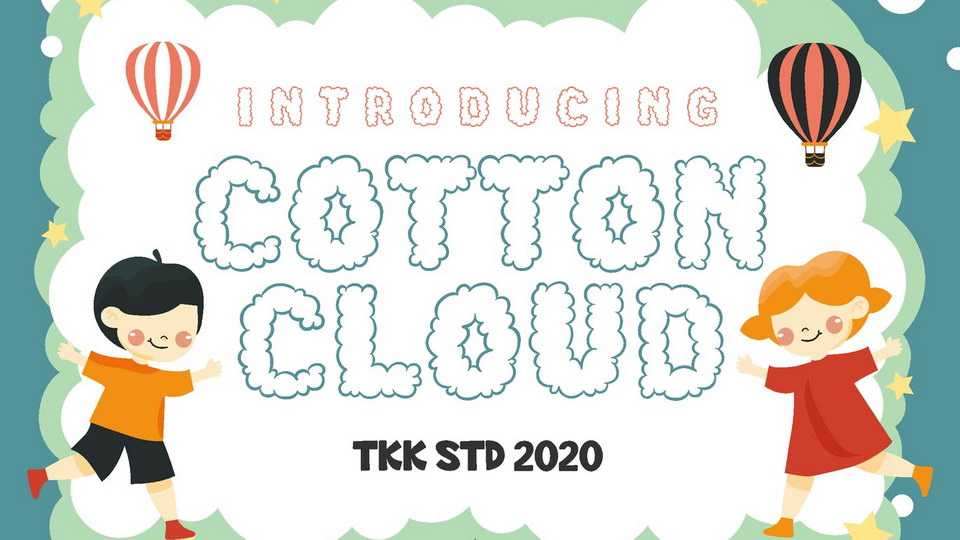
Download Cotton Cloud font, an airy display typeface, inspired by flying through the cloud, feel the softness of the cottony and fluffy cloud in the sky. Suits perfectly for adventure online games, poster, movie title and so on…